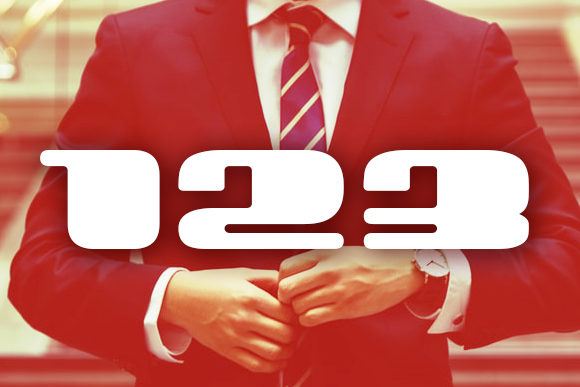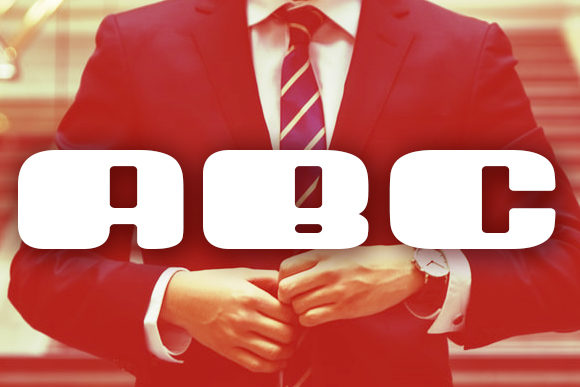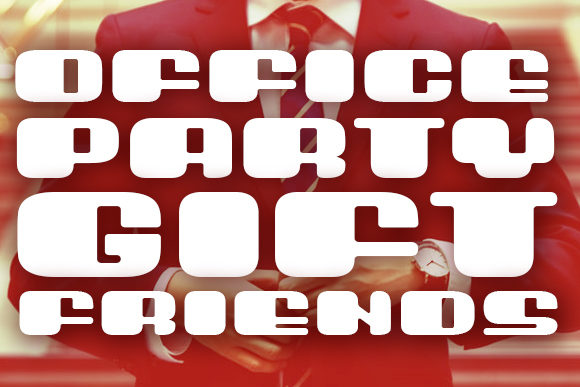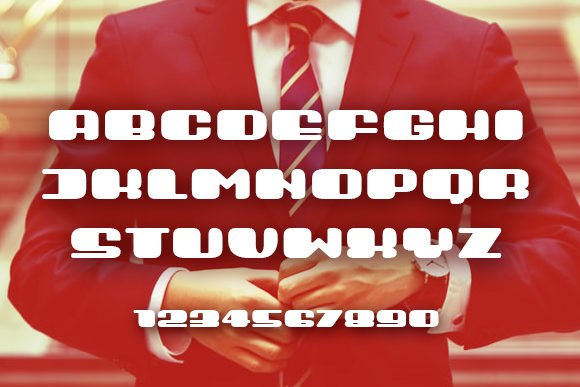
Introducing Guest Font: The Ultimate Display Font for Modern Designs
In the world of typography, a good font can make all the difference in creating a lasting impression. For designers and crafters, finding the perfect font that combines style, modernity, and versatility can be a daunting task. However, if you’re looking for a font that checks all these boxes and more, look no further than Guest Font. This masterfully designed display font is a true must-have for anyone looking to elevate their designs to the next level.
What Makes Guest Font Stand Out?
Guest Font is a bold, yet modern font that features chunky and extended characters, making it perfect for a wide range of design applications. Its unique and stylish design makes it particularly adept when used in logos, branding, packaging design, and much more. Whether you’re working on a personal project or a client’s, Guest Font is sure to make a statement.
Key Features of Guest Font
- Bold and Modern Design: Guest Font boasts a bold and modern design that’s sure to grab attention. Its chunky and extended characters give it a unique and stylish edge.
- Versatile: This display font is perfect for a wide range of design applications, including logos, branding, packaging design, and more.
- Easy to Read: Despite its bold design, Guest Font is easy to read, making it perfect for headlines, titles, and other display text.
- Highly Customizable: With Guest Font, you can easily customize your text to fit your design needs.
Why Designers and Crafters Love Guest Font
Guest Font has quickly become a favorite among designers and crafters, and for good reason. Its unique design and versatility make it perfect for a wide range of projects. Here are just a few reasons why designers and crafters love Guest Font:
- Perfect for Logos and Branding: Guest Font’s bold and modern design makes it perfect for logos and branding. Its chunky and extended characters give it a unique and stylish edge that’s sure to make your brand stand out.
- Great for Packaging Design: With Guest Font, you can create eye-catching packaging designs that are sure to grab attention.
- Ideal for Display Text: Guest Font is perfect for display text, including headlines, titles, and more.
How to Use Guest Font in Your Designs
Using Guest Font in your designs is easy. Here are a few tips to get you started:
- Use it as a Display Font: Guest Font is perfect for display text, including headlines, titles, and more.
- Pair it with Other Fonts: Guest Font pairs well with other fonts, making it easy to create visually appealing designs.
- Experiment with Different Sizes and Colors: Don’t be afraid to experiment with different sizes and colors to find the perfect look for your design.